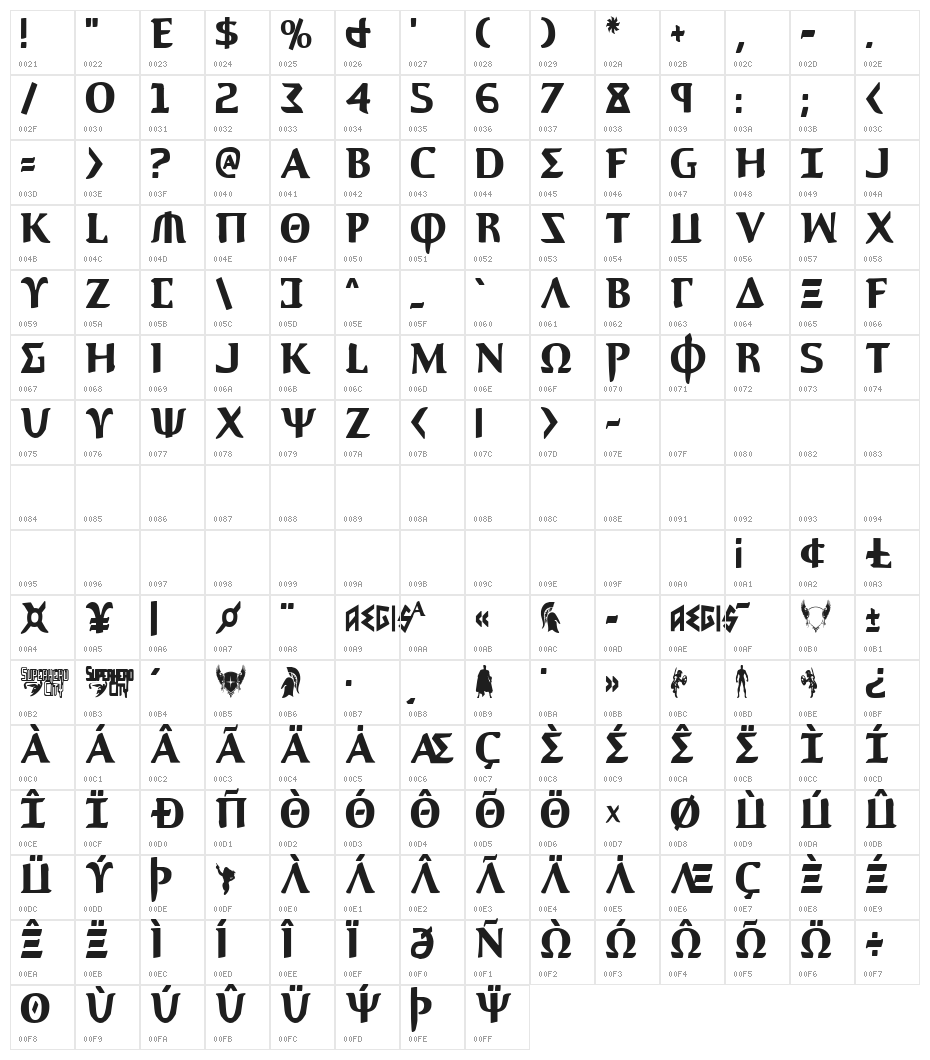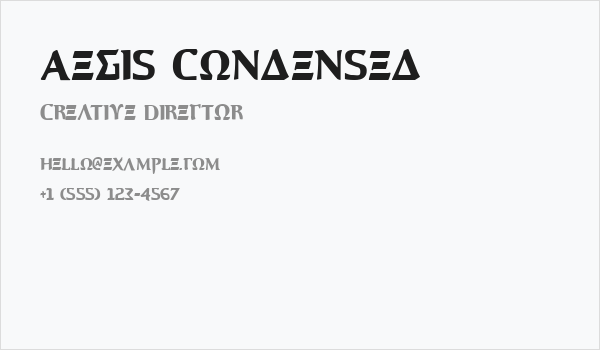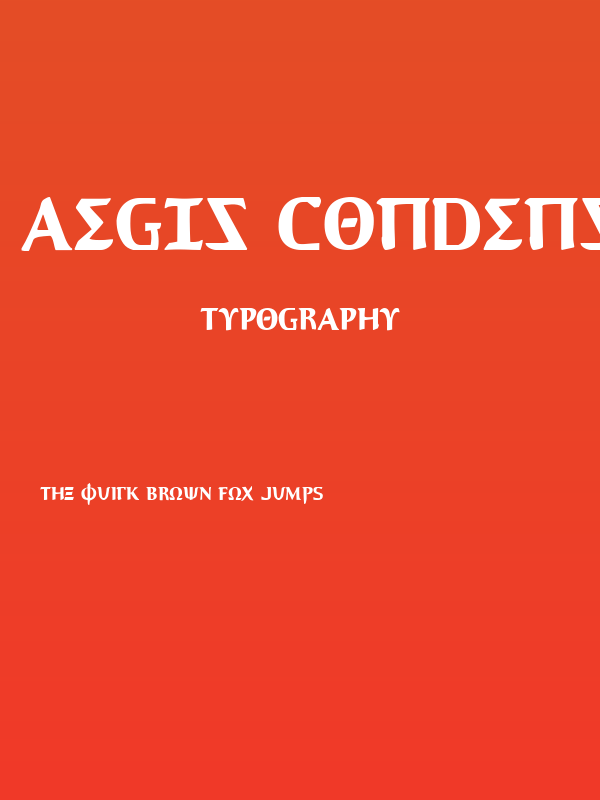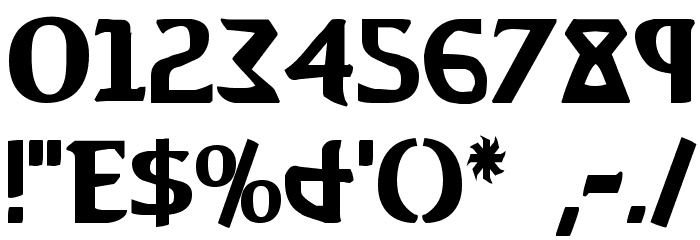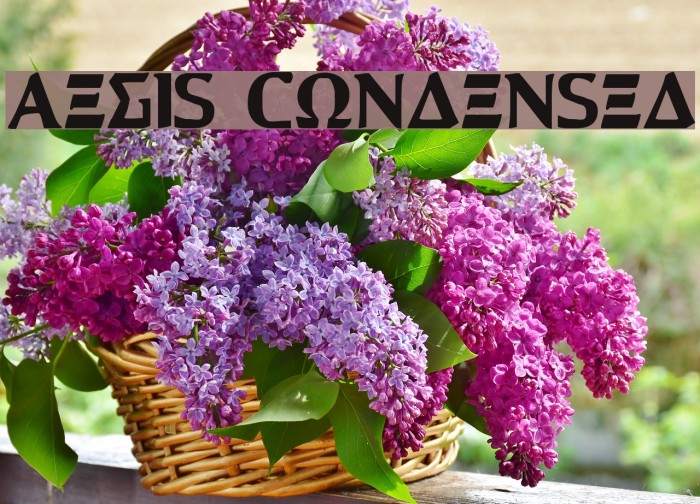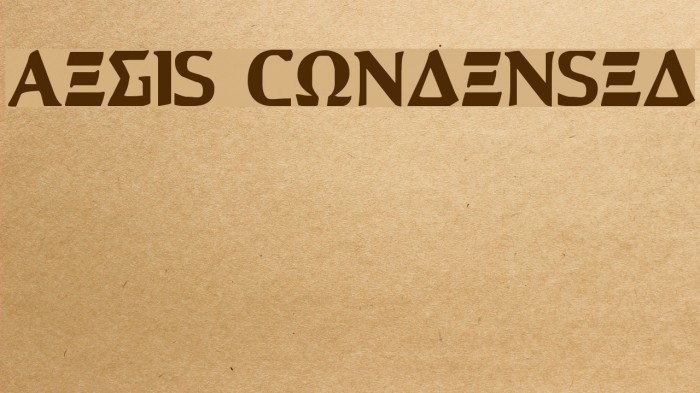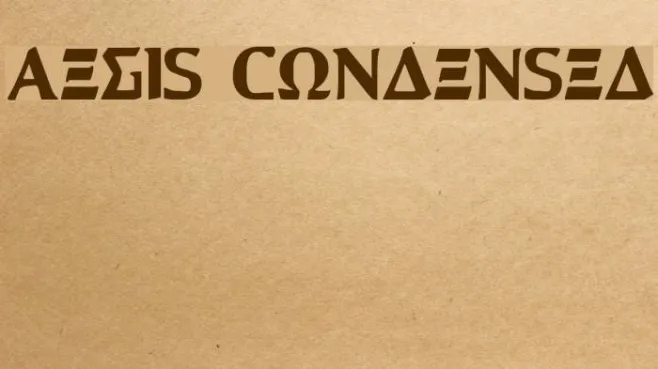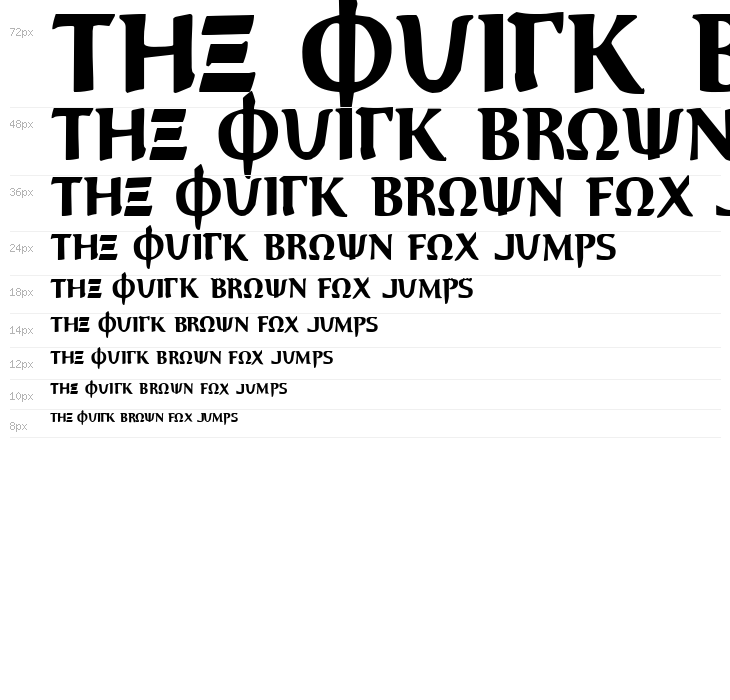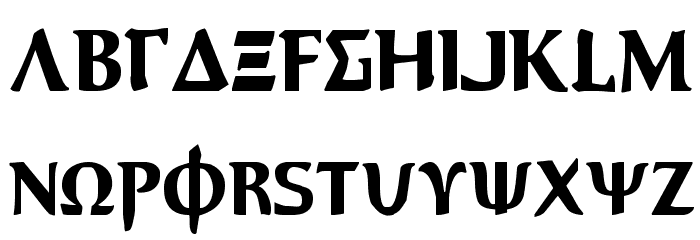
Aegis Condensed Font
Aegis Condensed Description
This font features a bold and condensed style with a distinct geometric influence, characterized by sharp angles and a strong presence. The uppercase letters exhibit a unique blend of traditional and modern elements, with some characters incorporating unexpected curves and lines that add a dynamic flair. The lowercase letters maintain this aesthetic, offering a cohesive look across the typeface. The numerals are equally bold, ensuring visibility and impact. Special characters are designed with the same attention to detail, making them stand out while remaining harmonious with the rest of the font. This typeface is ideal for making a statement, with its striking appearance and clear readability.